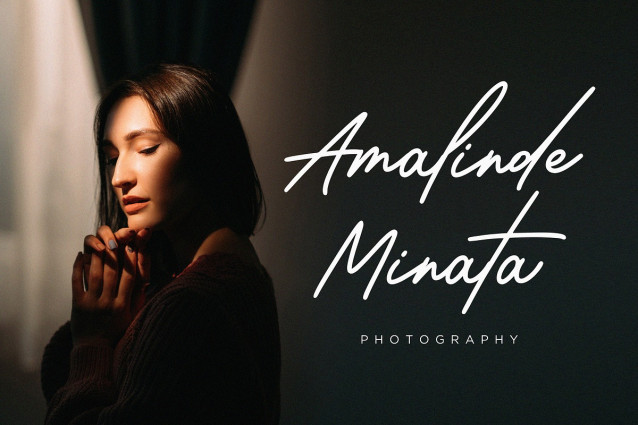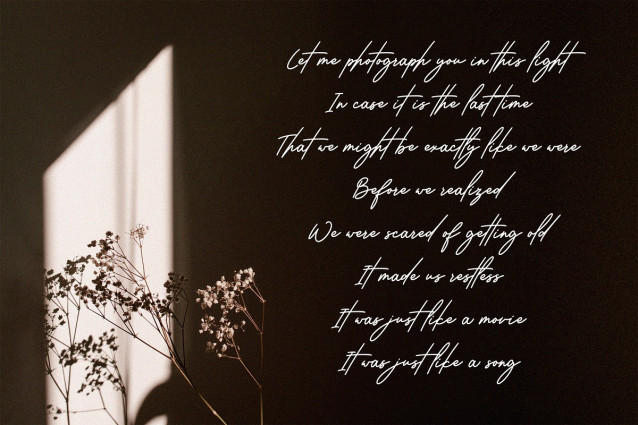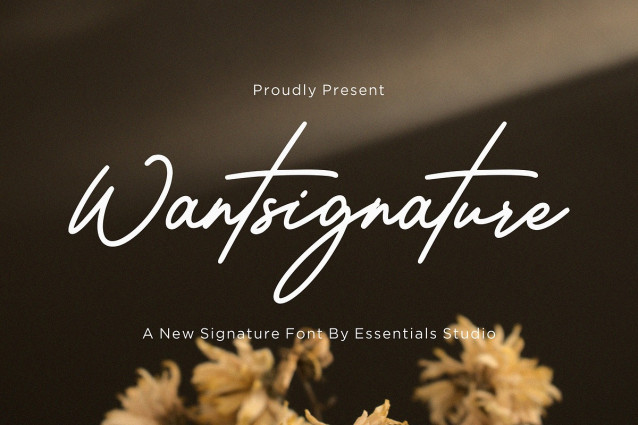
Wantsignature Font
Wantsignature Font a luxury signature font. It is perfect for product packaging, branding project, magazines, social media, weddings, or just used to express words above the background.